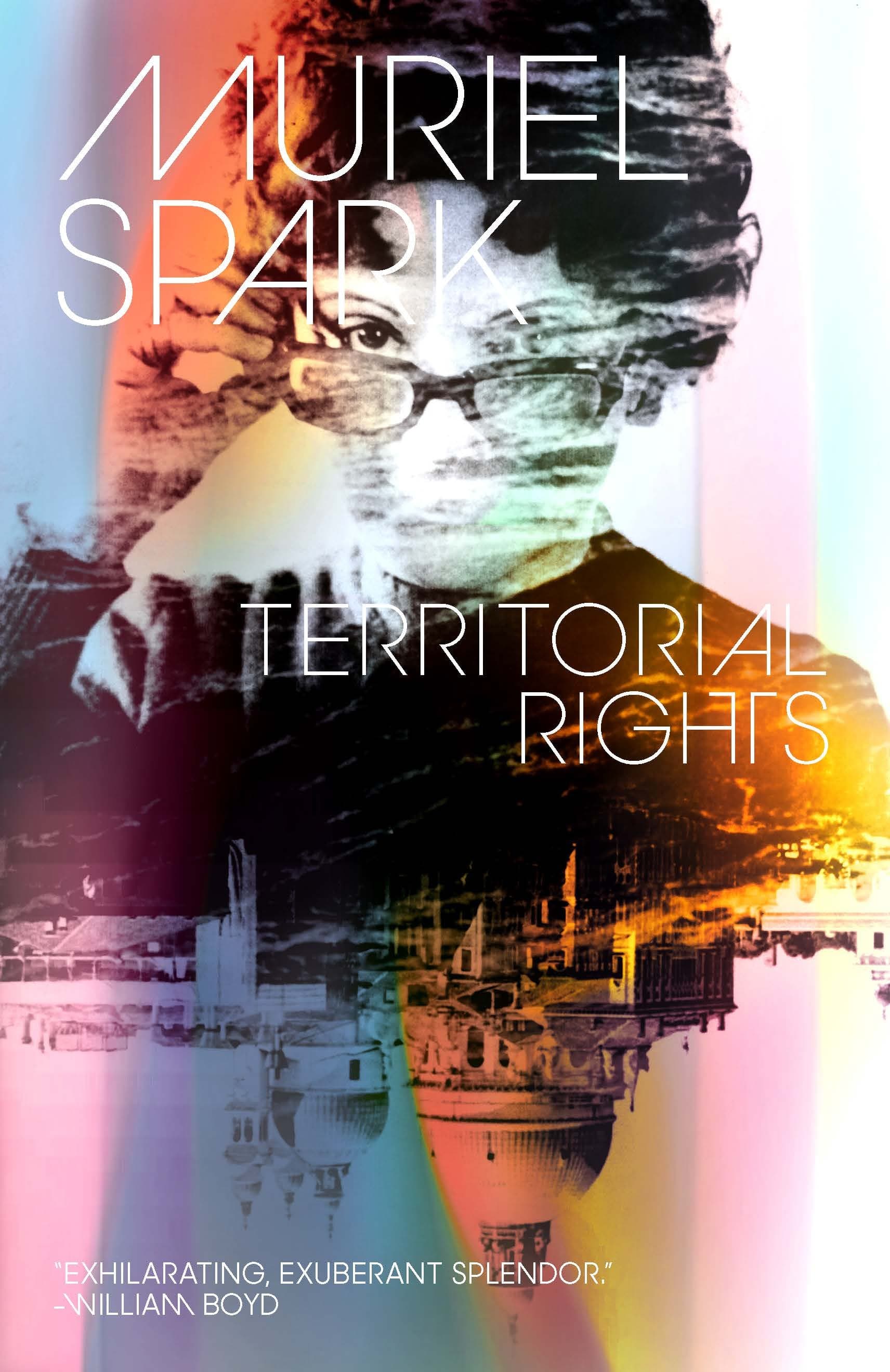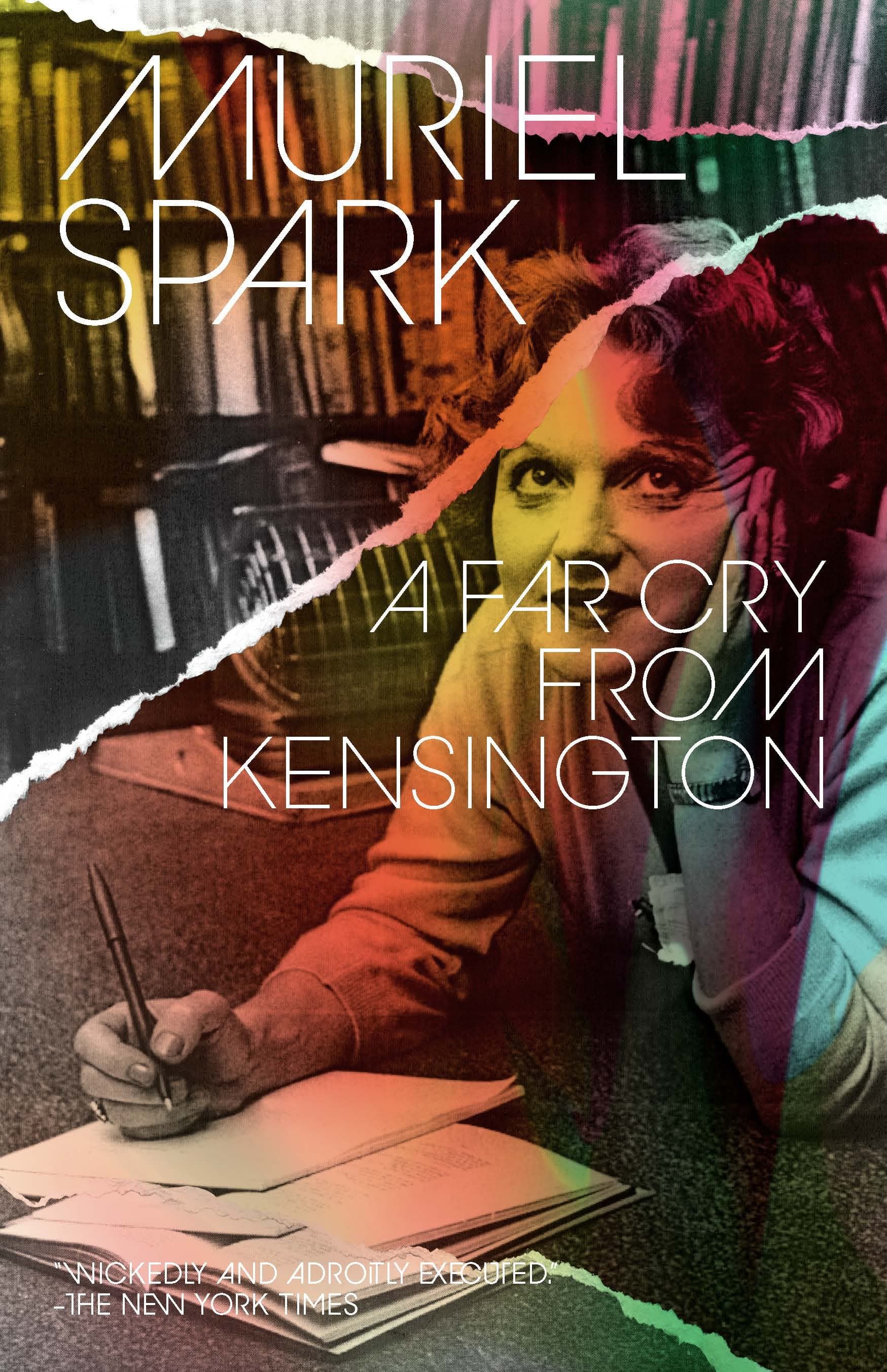
Muriel Sparks & Sharp Sans Display No.2
Erik Carter designed a series of book covers for the Muriel Sparks collection using Sharp Sans Display No.2 and its Herb Lubalin stylistic set opentype feature.